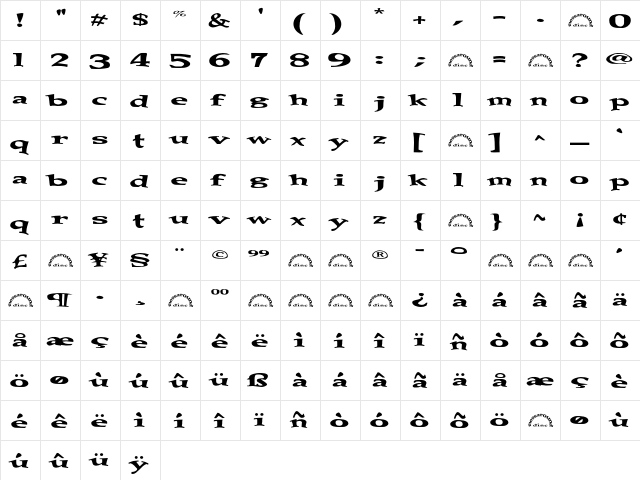
Messaround Regular
Design Context for Messaround Typeface
Messaround softens its letterforms with rounded terminals, giving it an approachable, friendly quality that works well in consumer-facing and digital contexts.
Well-suited to UI design, mobile interfaces, and any brand that wants approachability without sacrificing clarity.
Font Pairing: Pairs well with a rounded or humanist sans for body copy, maintaining the friendly tone without relying on Messaround to carry extended reading.
Pro Tip: Use Messaround for UI elements, app interfaces, and anywhere a friendly, approachable tone needs to be maintained without sacrificing clarity.